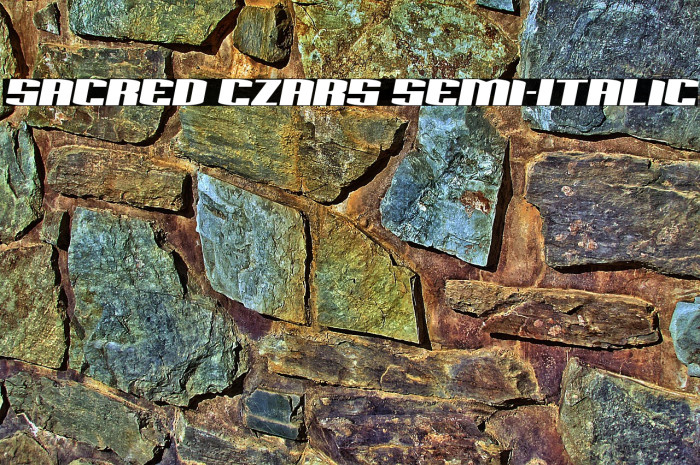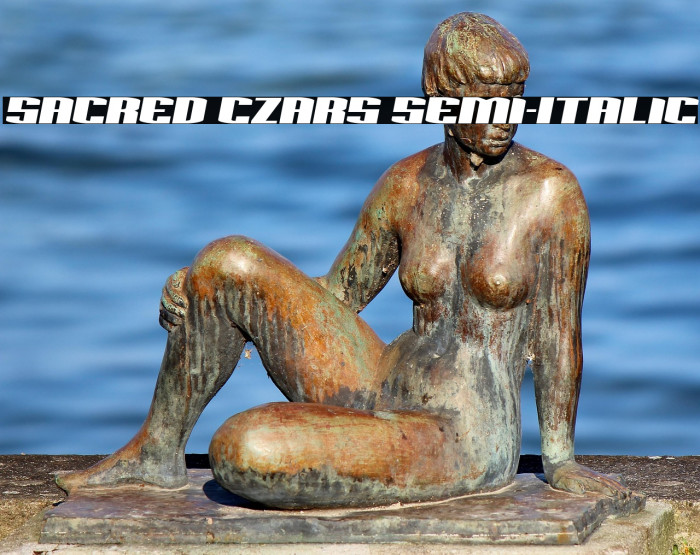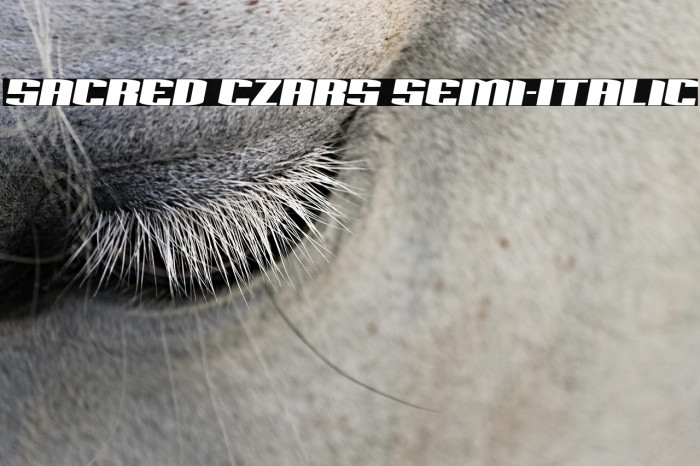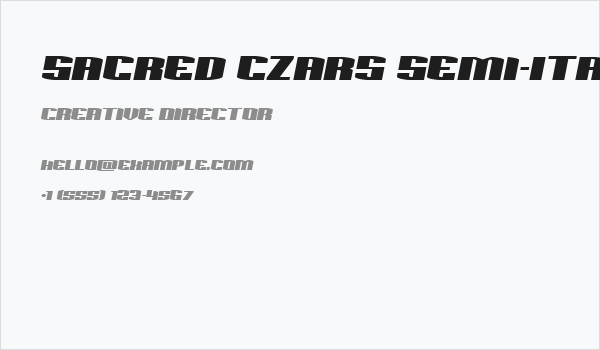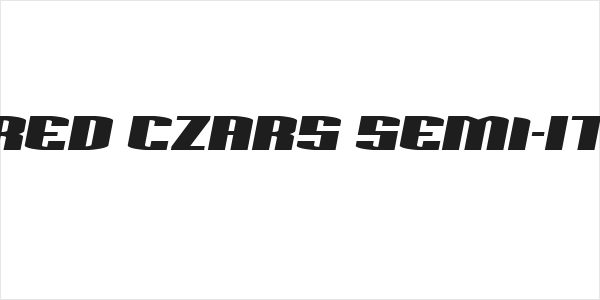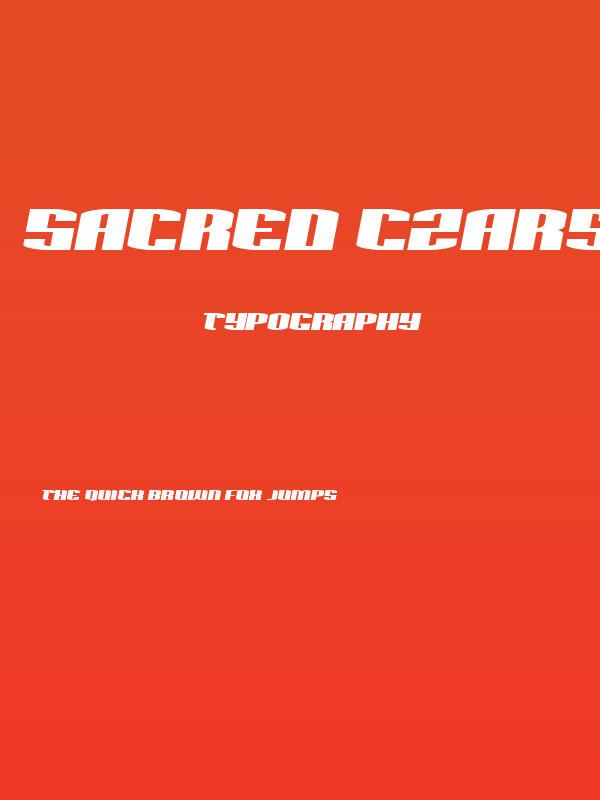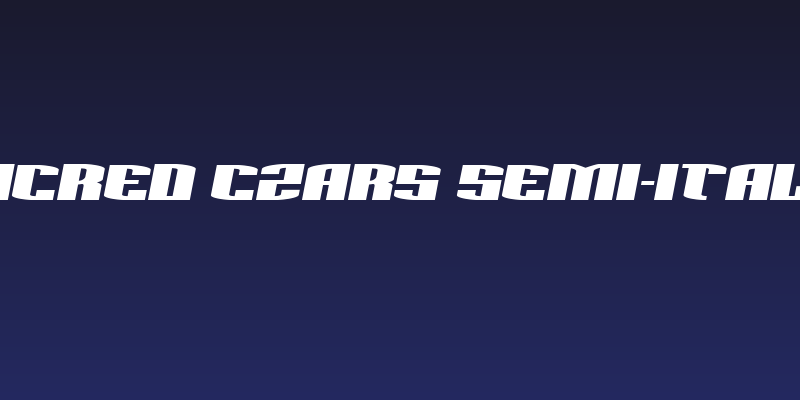
Sacred Czars Semi-Italic Font
Sacred Czars Semi-Italic Description
This font features a bold, angular design with a semi-italic slant, giving it a dynamic and modern appearance. The characters are wide and have a strong presence, making them suitable for attention-grabbing headlines. The uppercase and lowercase letters share a consistent style, with sharp edges and a geometric influence. The numbers and special characters maintain the same boldness and angularity, ensuring uniformity across all glyphs. The font's unique style makes it ideal for projects that require a strong visual impact.
| Proposed Projects | Ideal for branding, posters, headlines, and any design requiring a bold statement. |